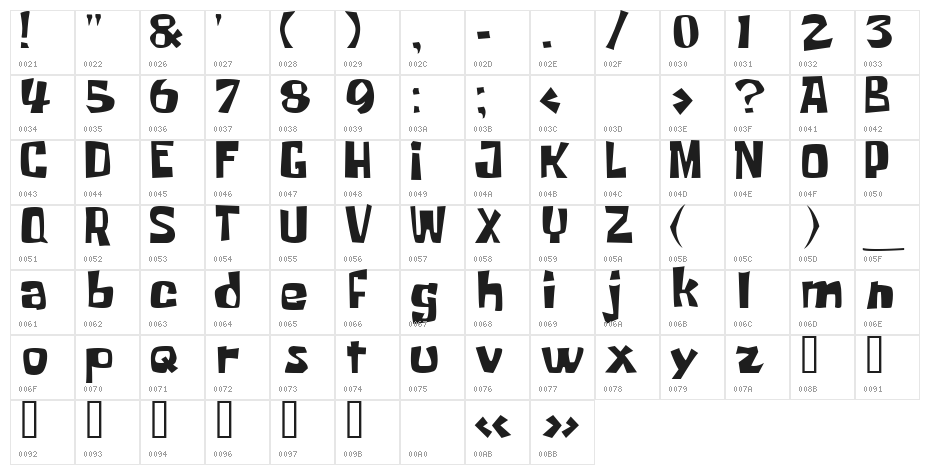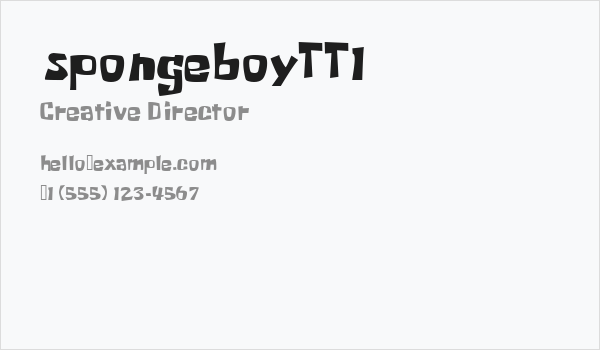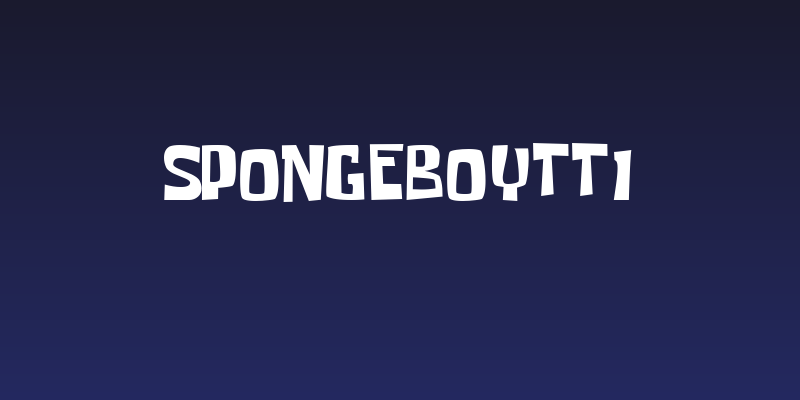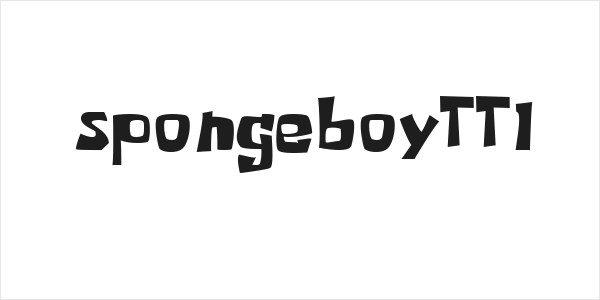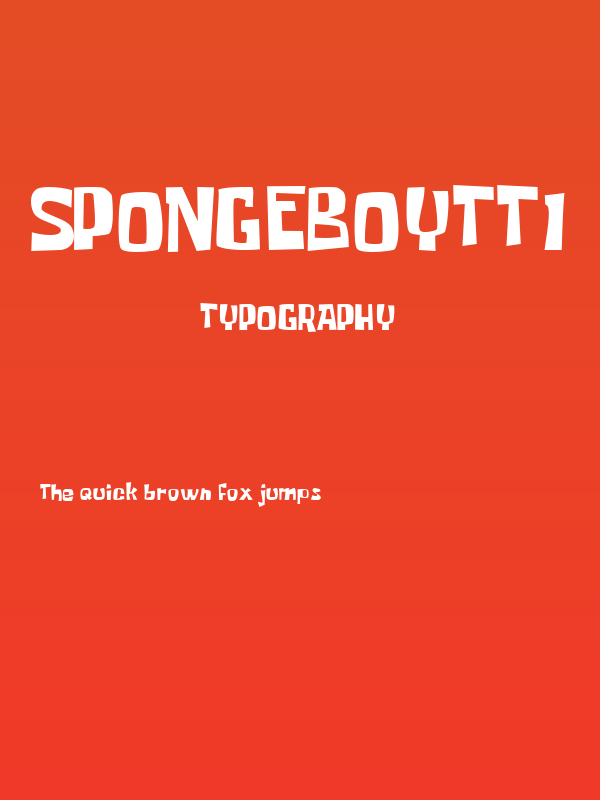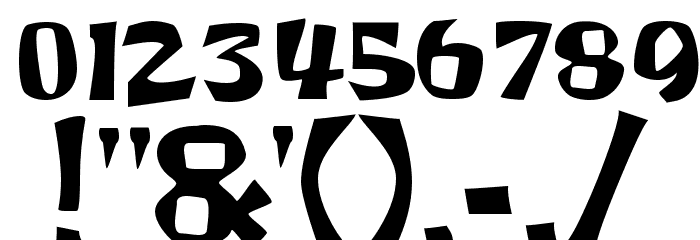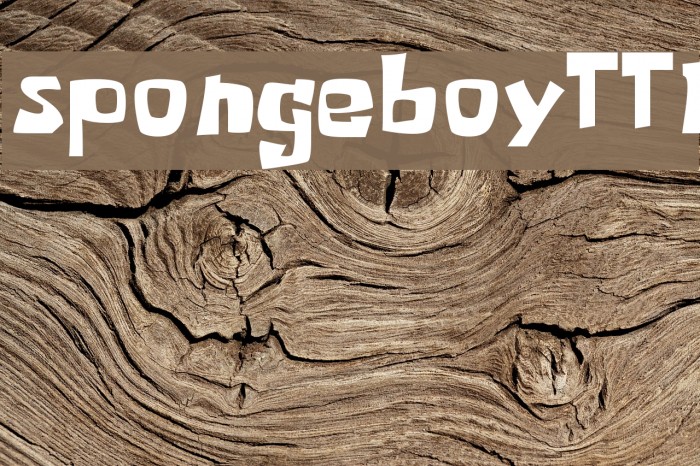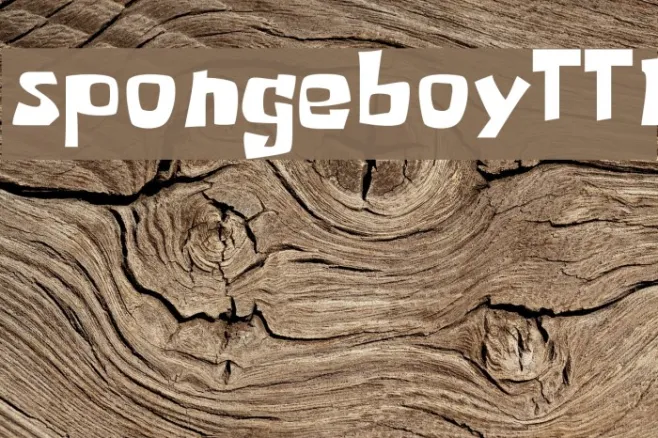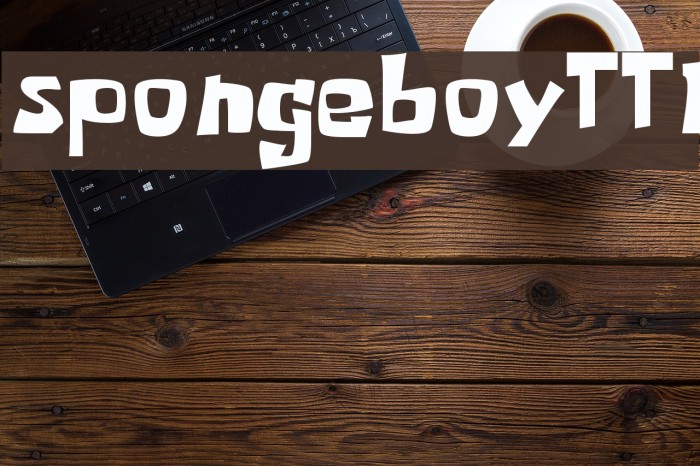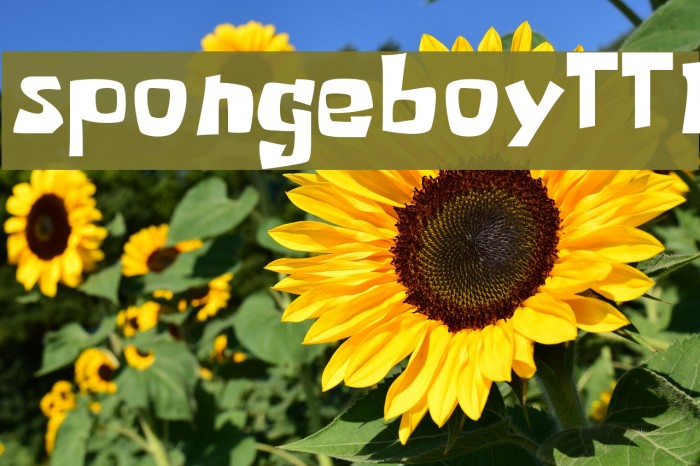
spongeboyTT1 Font
spongeboyTT1 Description
This font features a playful and quirky design with irregular, bold strokes that give it a lively and animated appearance. The characters have a hand-drawn feel, with varying widths and angles that create a sense of movement and energy. The uppercase letters are particularly bold and dynamic, while the lowercase letters maintain a consistent style that complements the overall aesthetic. The numbers and special characters follow the same whimsical style, making this font ideal for projects that require a fun and engaging visual impact.
| Overall Style | Playful, Quirky |
| Proposed Projects | Ideal for children's books, cartoon titles, playful branding, and creative posters. |